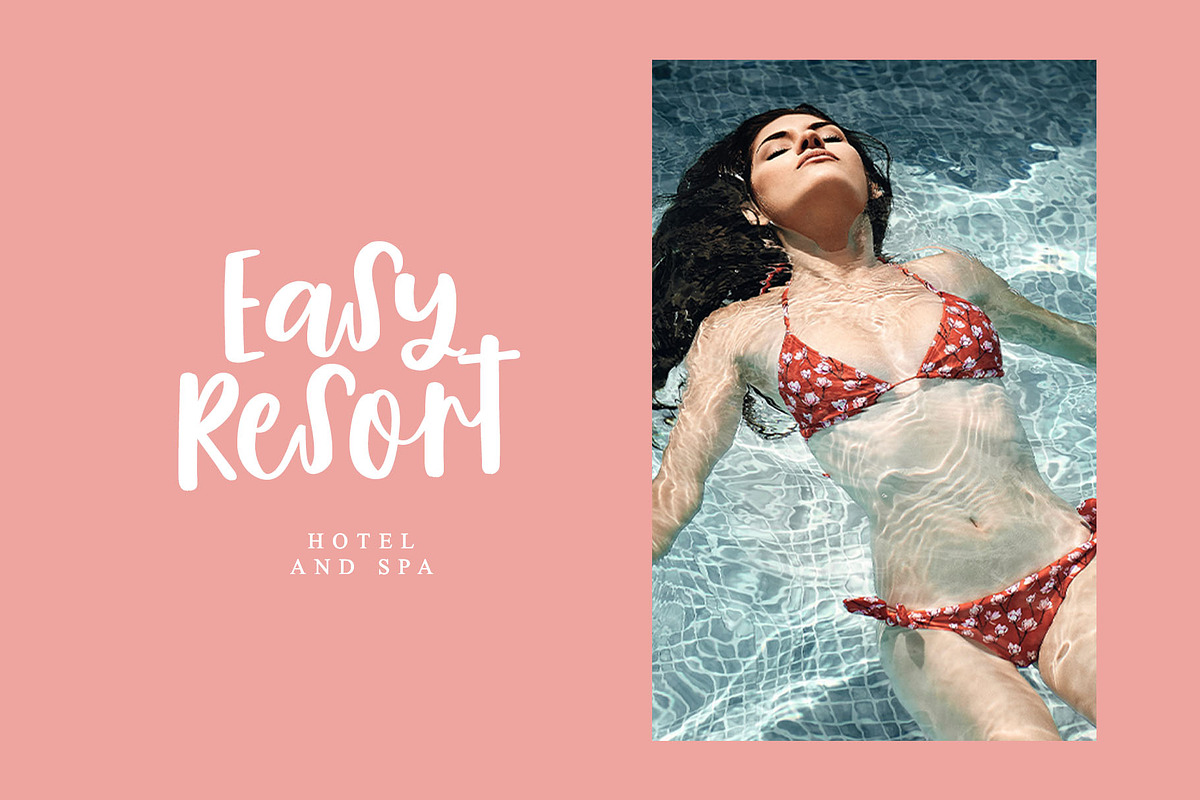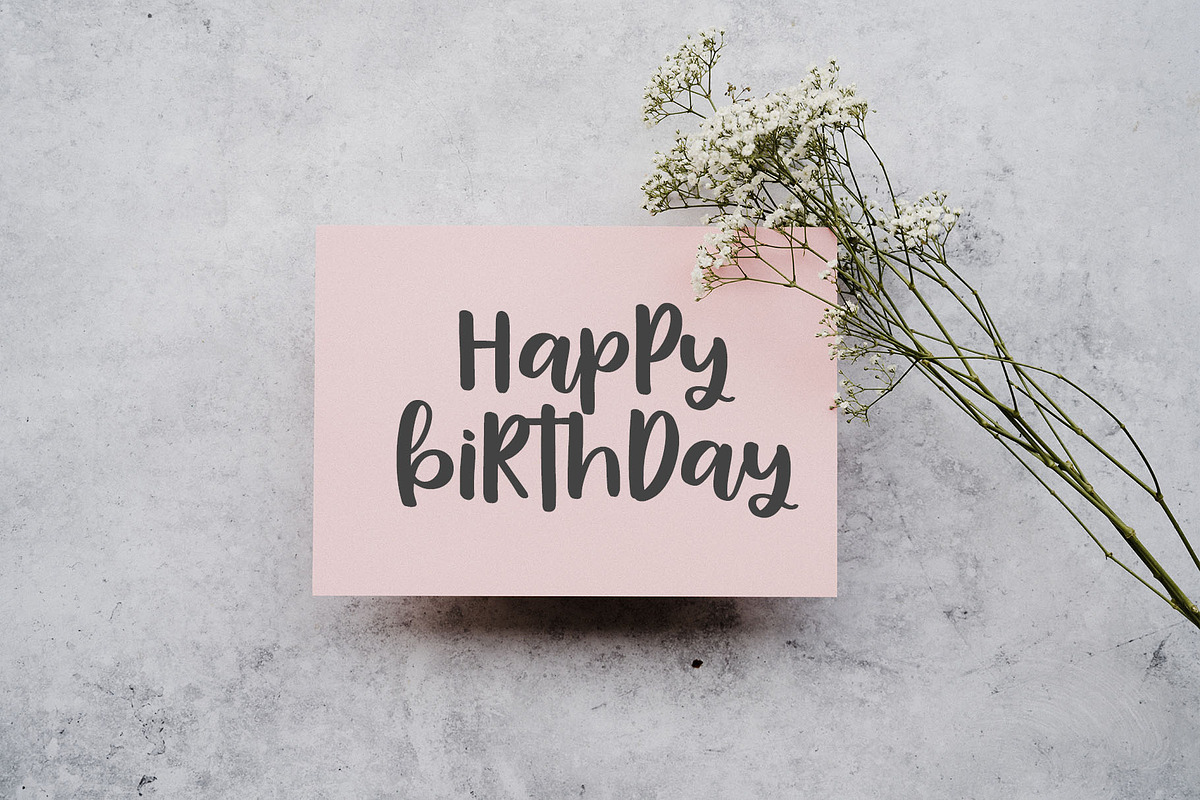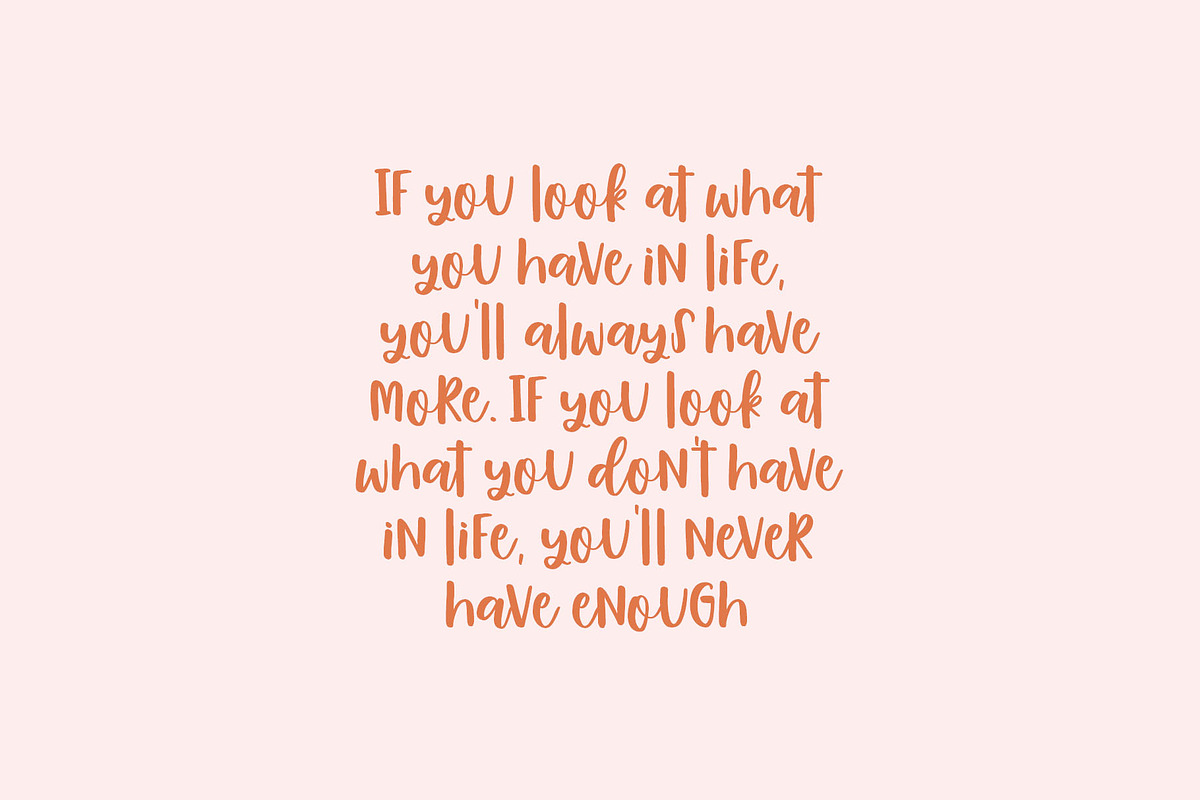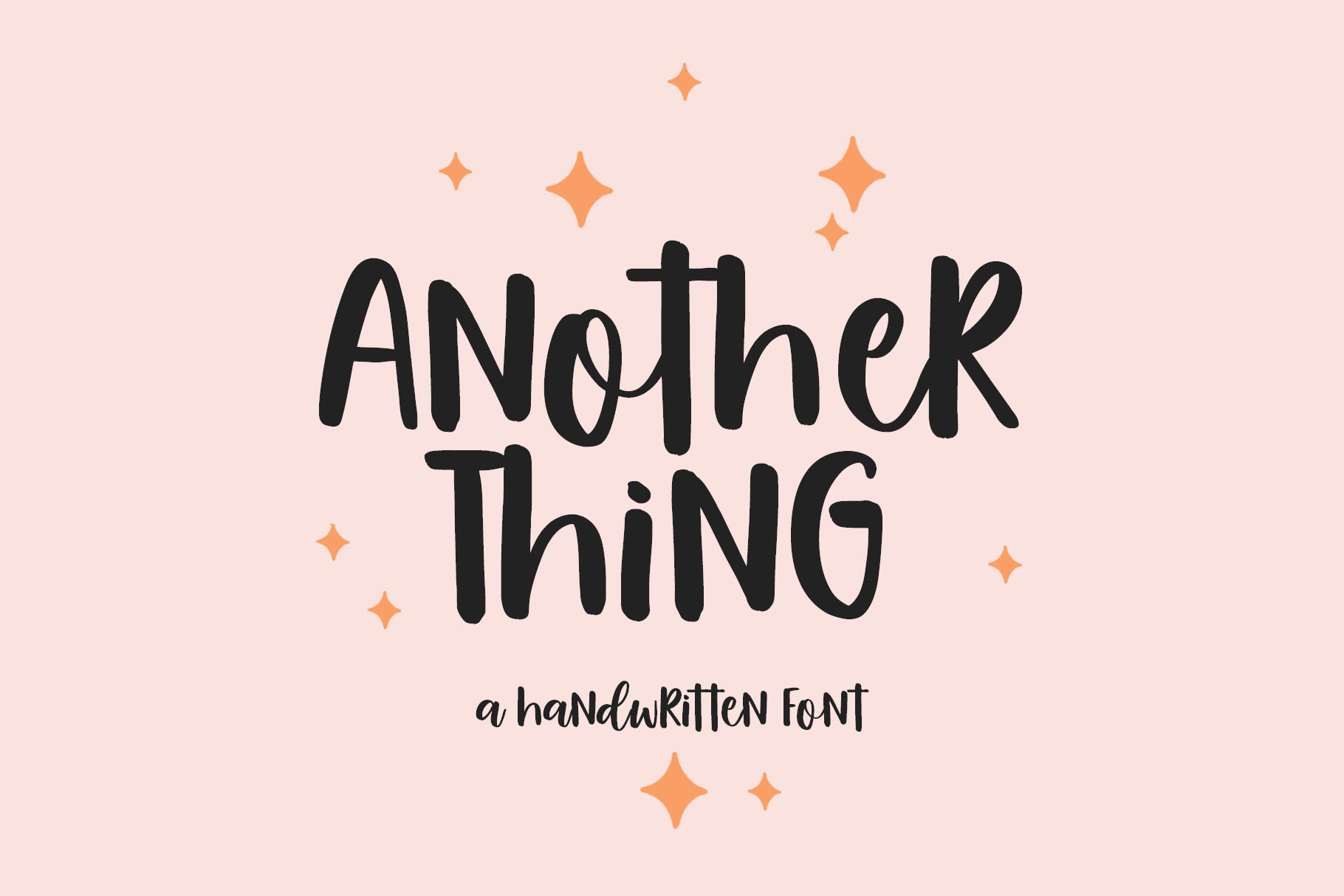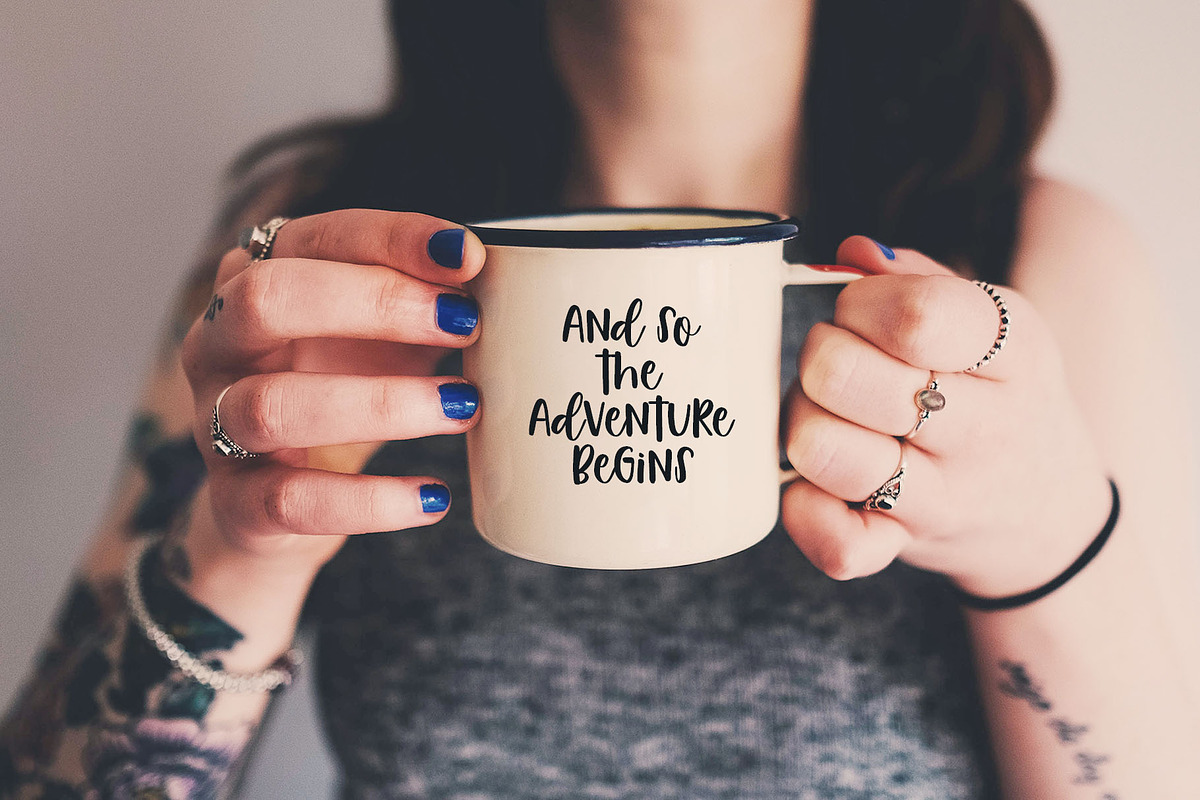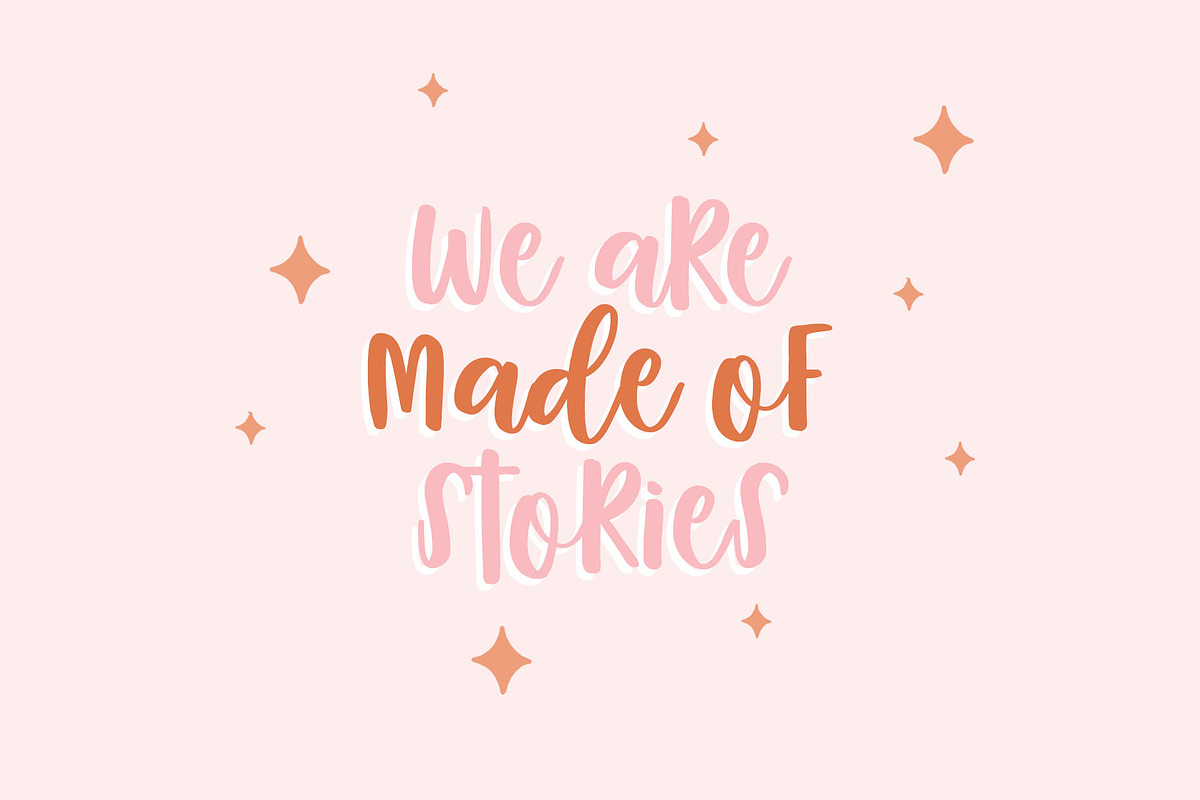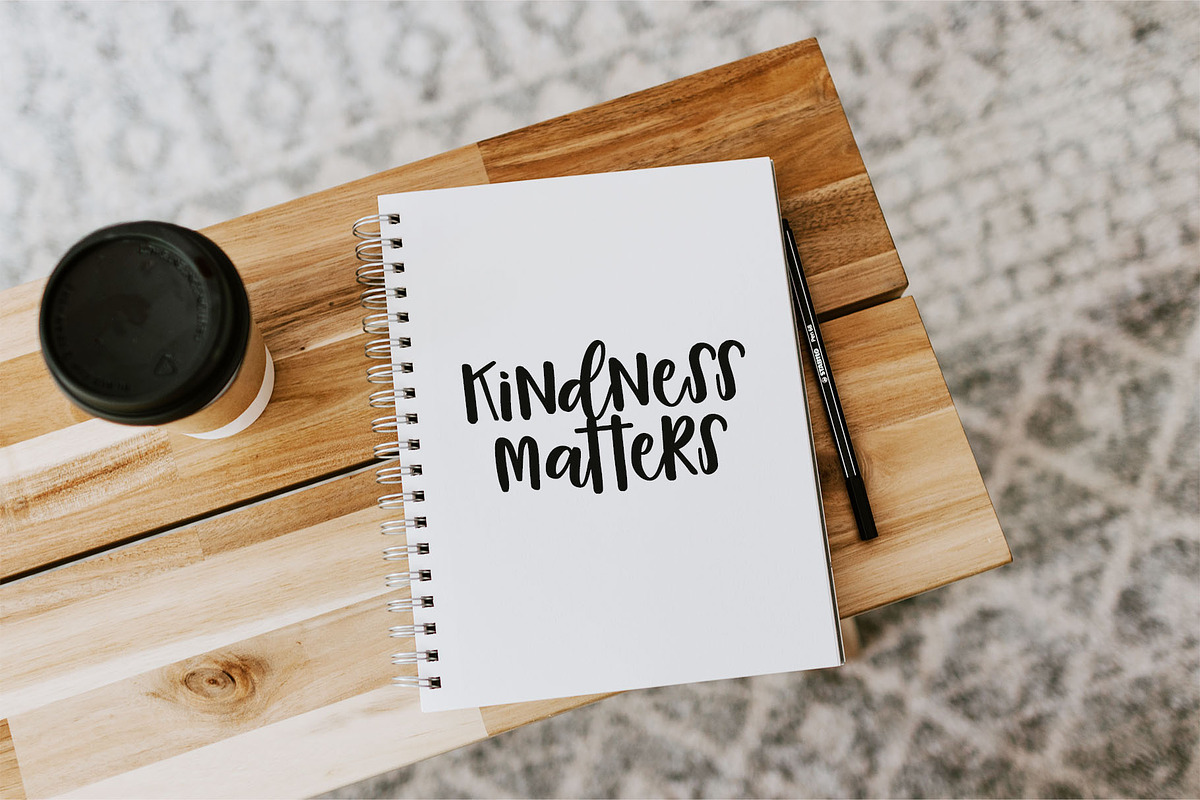
Another Thing handwritten font
Another Thing is a cute handwritten font perfect for headings, flyer, greeting cards, product packaging, book cover, printed quotes, logotype, apparel design, album covers, etc., or just adding a handwritten touch to any project!
Font is an open type with clean shapes and precise kerning. It includes ligatures encoded by the PUA. Language support: All European languages Don't forget to subscribe so you don't miss out on the new awesome fonts Dima